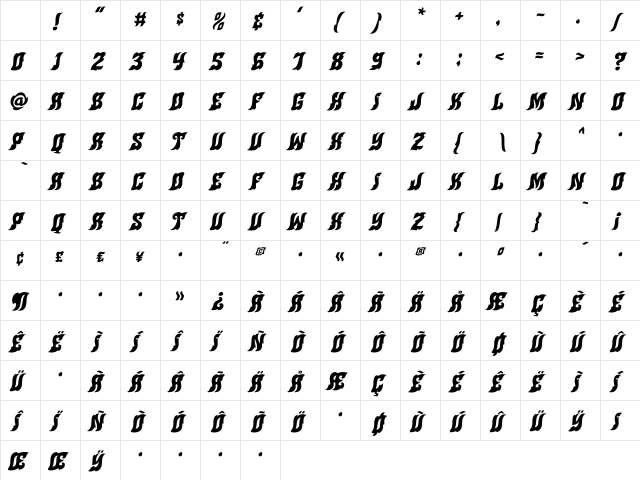
Complete HOUSE3009 Solarspace glyph index. Displaying only characters natively supported by HOUSE3009 Solarspace font.
HOUSE3009 is a composed and adaptable typeface that performs quietly and consistently across a wide range of design contexts.